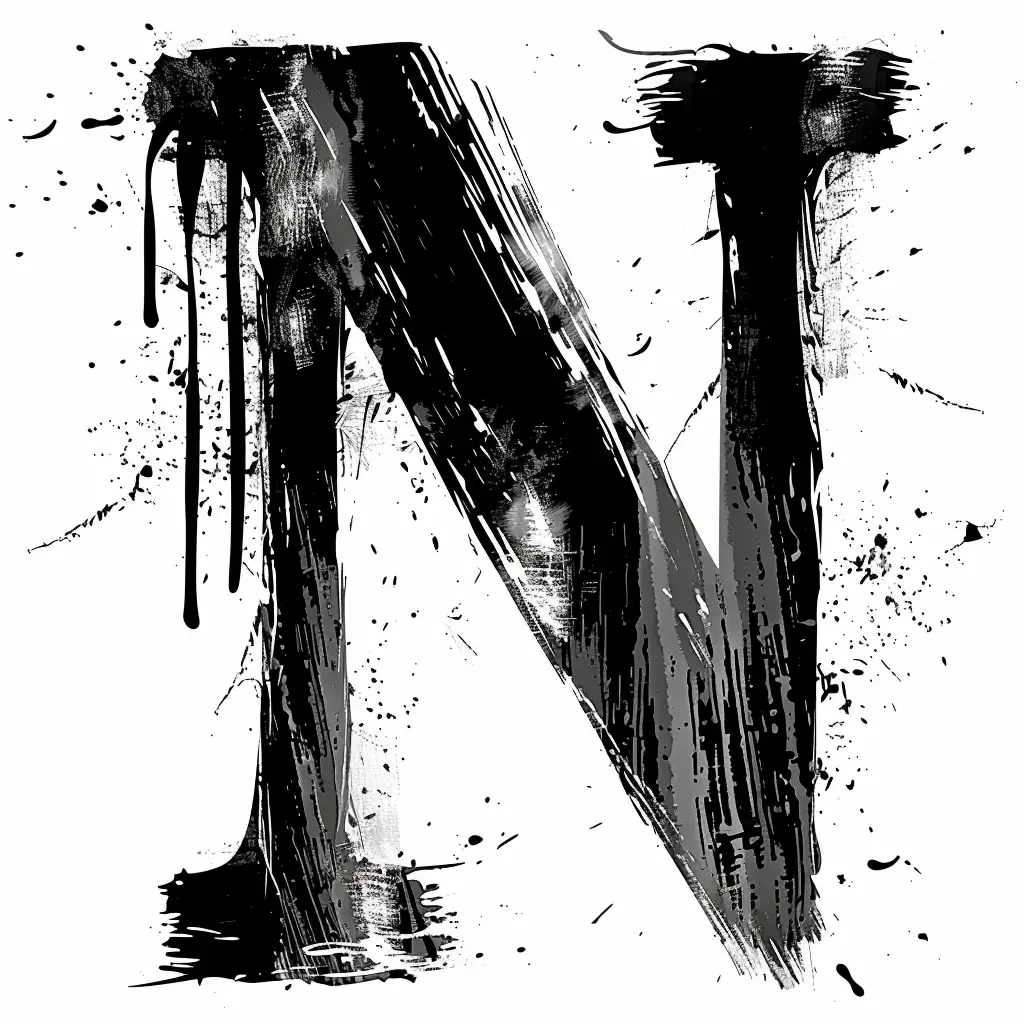
The image features a stylized, artistic representation of the letter "N" rendered in bold black and gray tones. The design employs a grungy, ink-splattered aesthetic with dripping paint effects, rough brushstrokes, and scattered splatters, creating a dynamic, textured appearance against a white background.